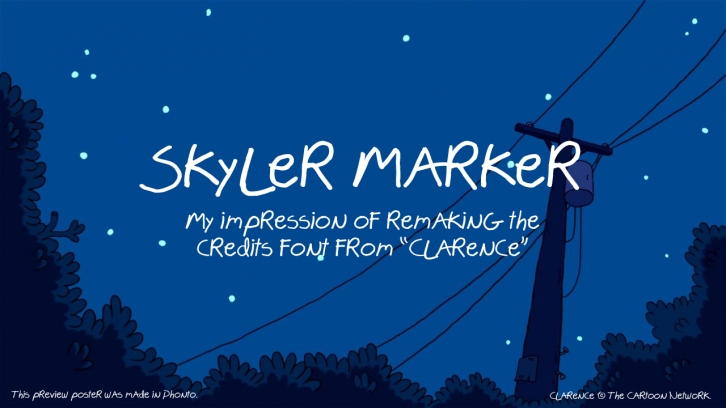
This is my impression of remaking the credits font used in the Cartoon Network show "Clarence." I made this back in October 2015.
I've decided to throw the sketches in here for reference, which ones I used because they closely resemble the glyphs, and which ones I didn't because they're not as good as the ones I traced.